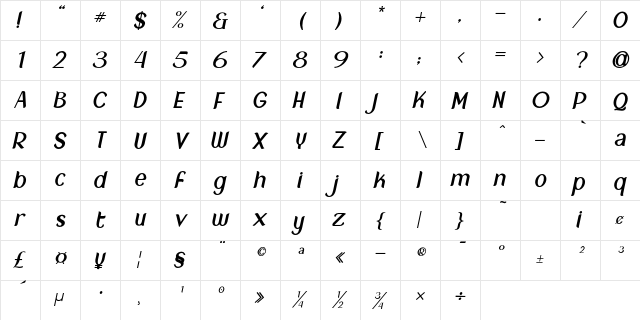
New Crown Normal Italic_DEMO Font Preview
New Crown Normal Italic_DEMO
Design Context for New Crown Typeface
New Crown is a composed and adaptable typeface that performs quietly and consistently across a wide range of design contexts. Its italic angle brings a sense of urgency and motion to the letterforms.
Pro Tip: Try New Crown for annotation and caption copy alongside an upright companion — the contrast in angle creates a dynamic but ordered typographic system.